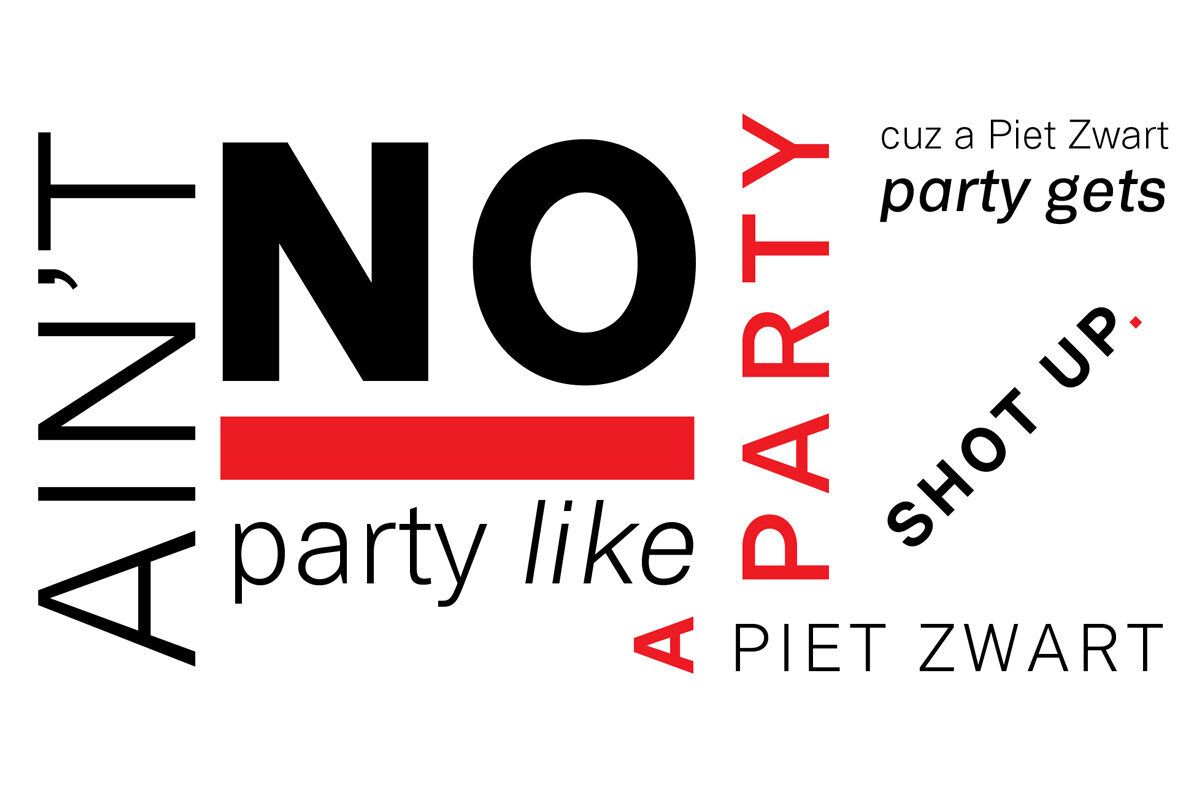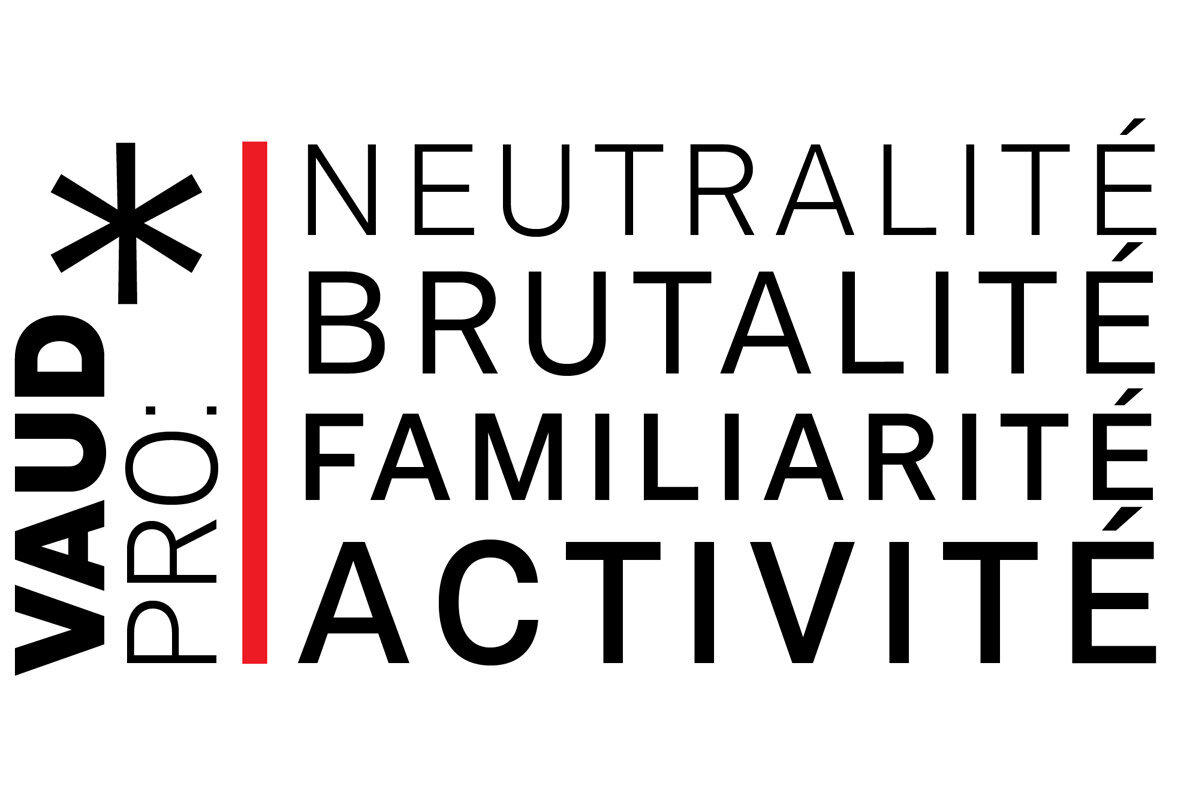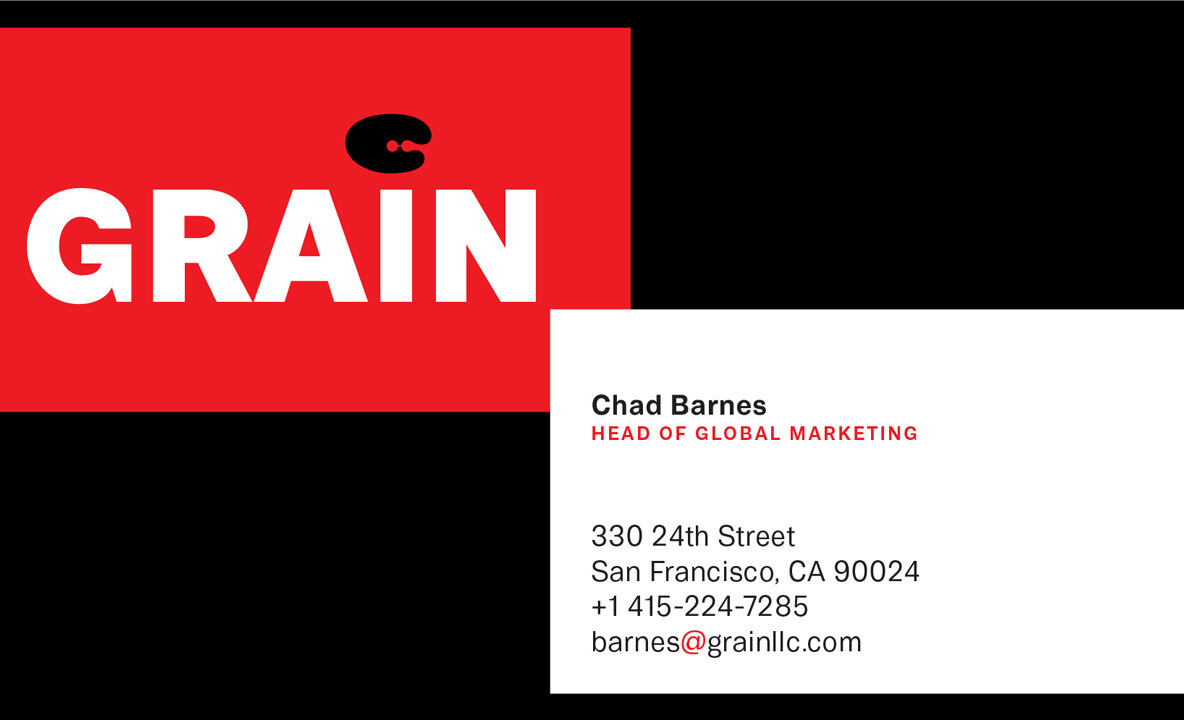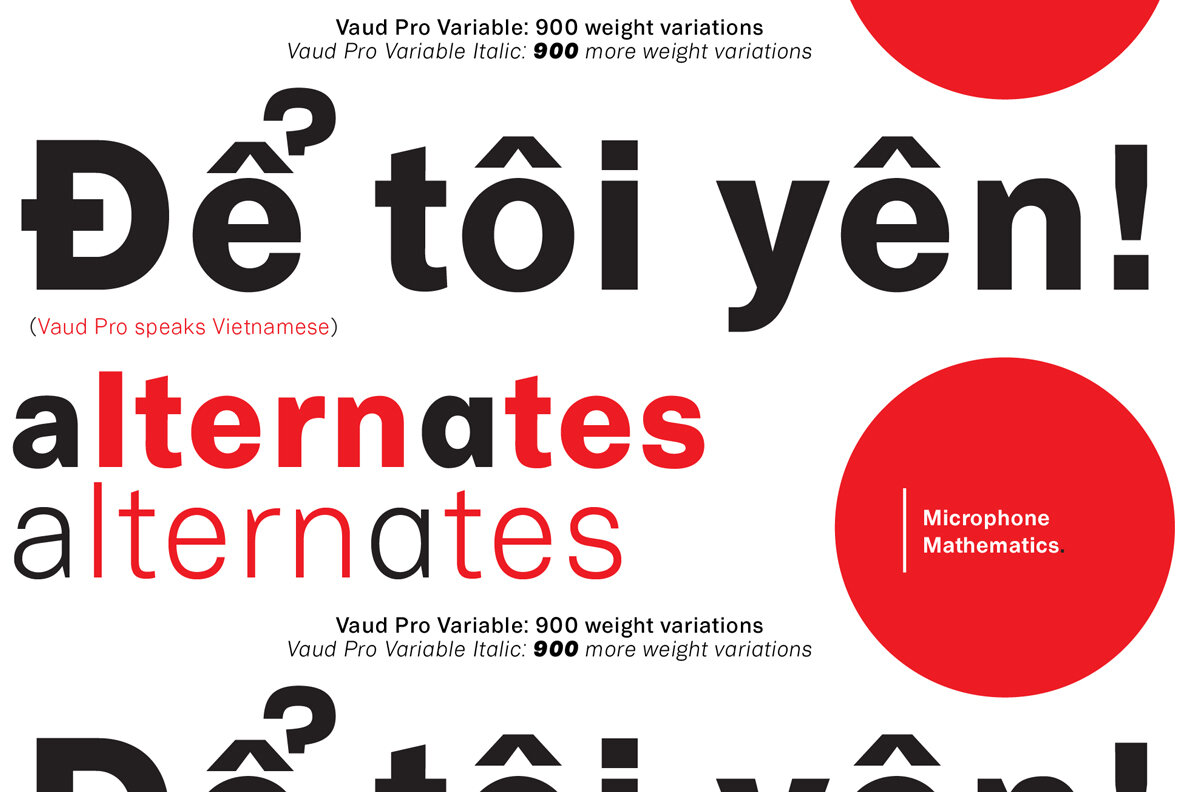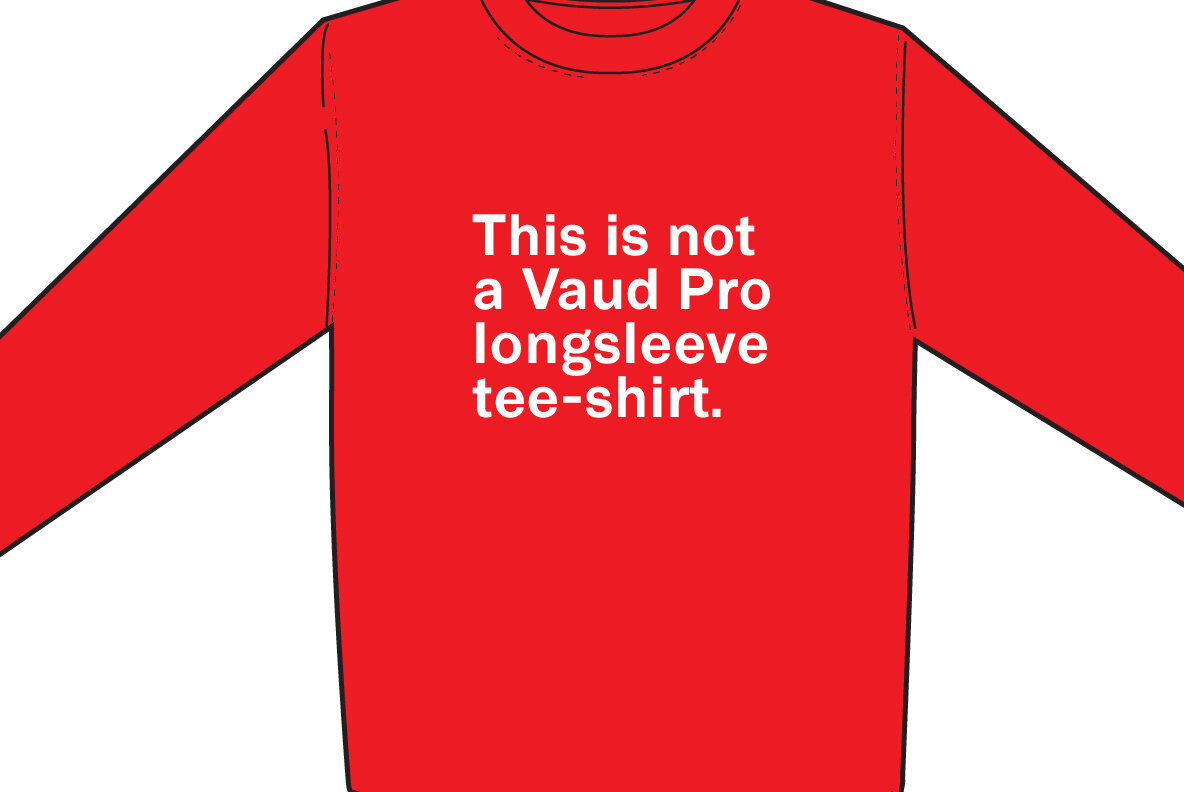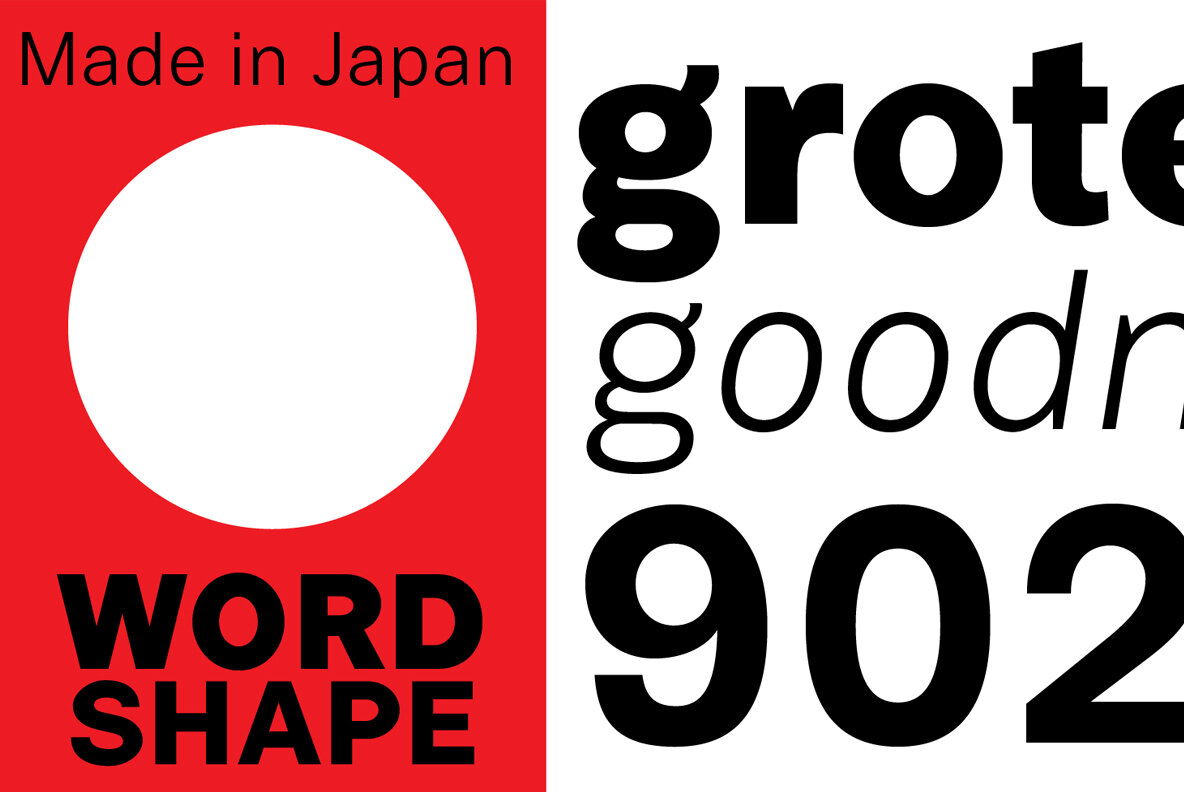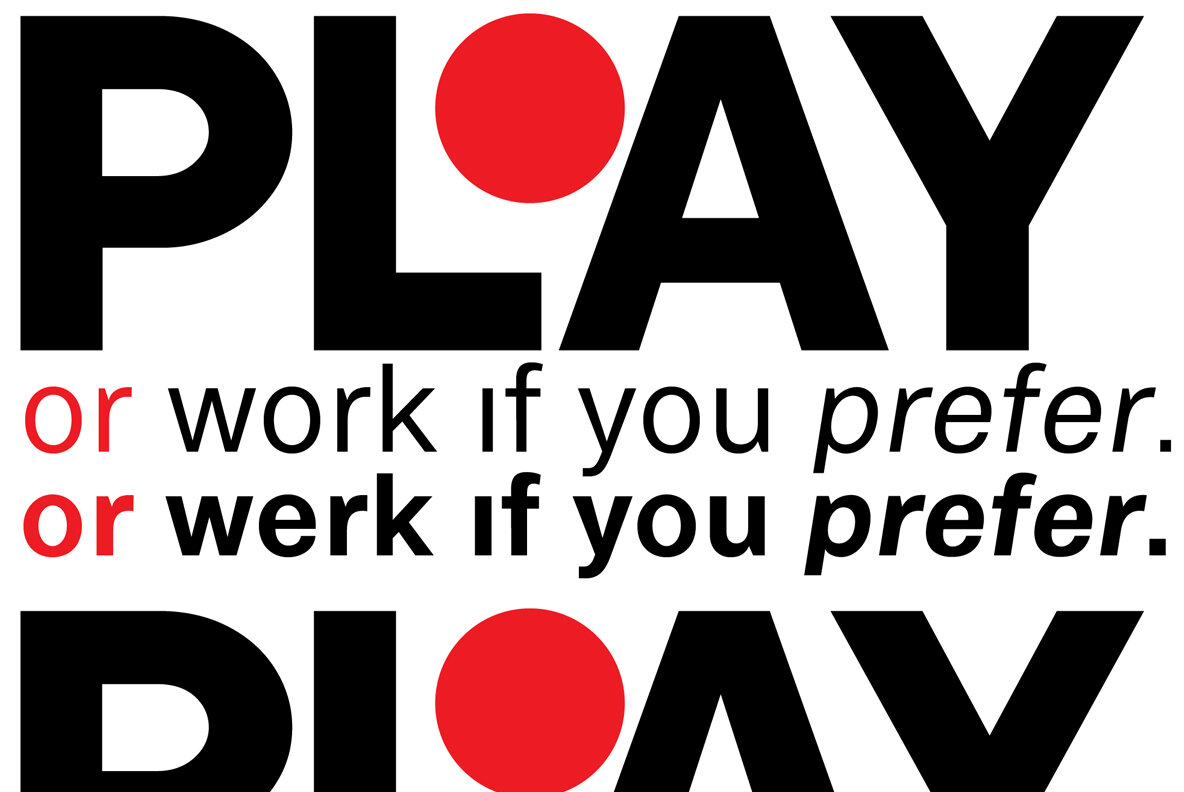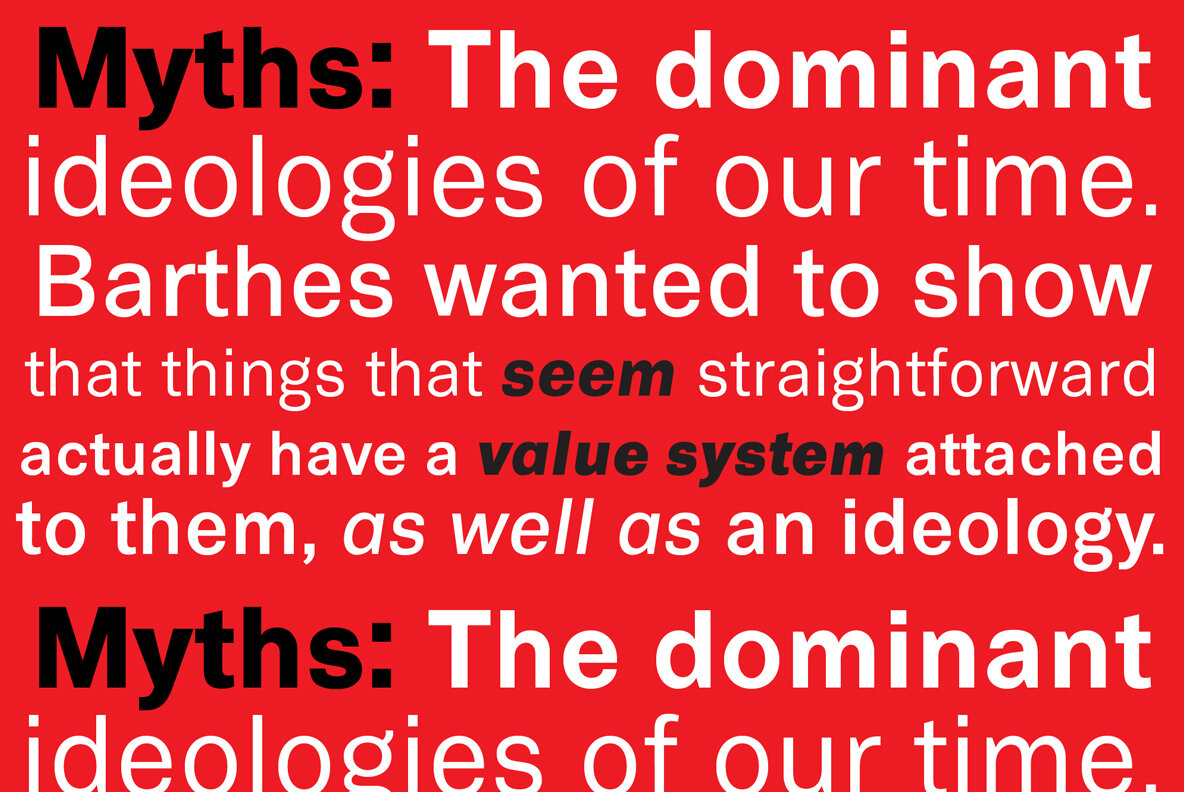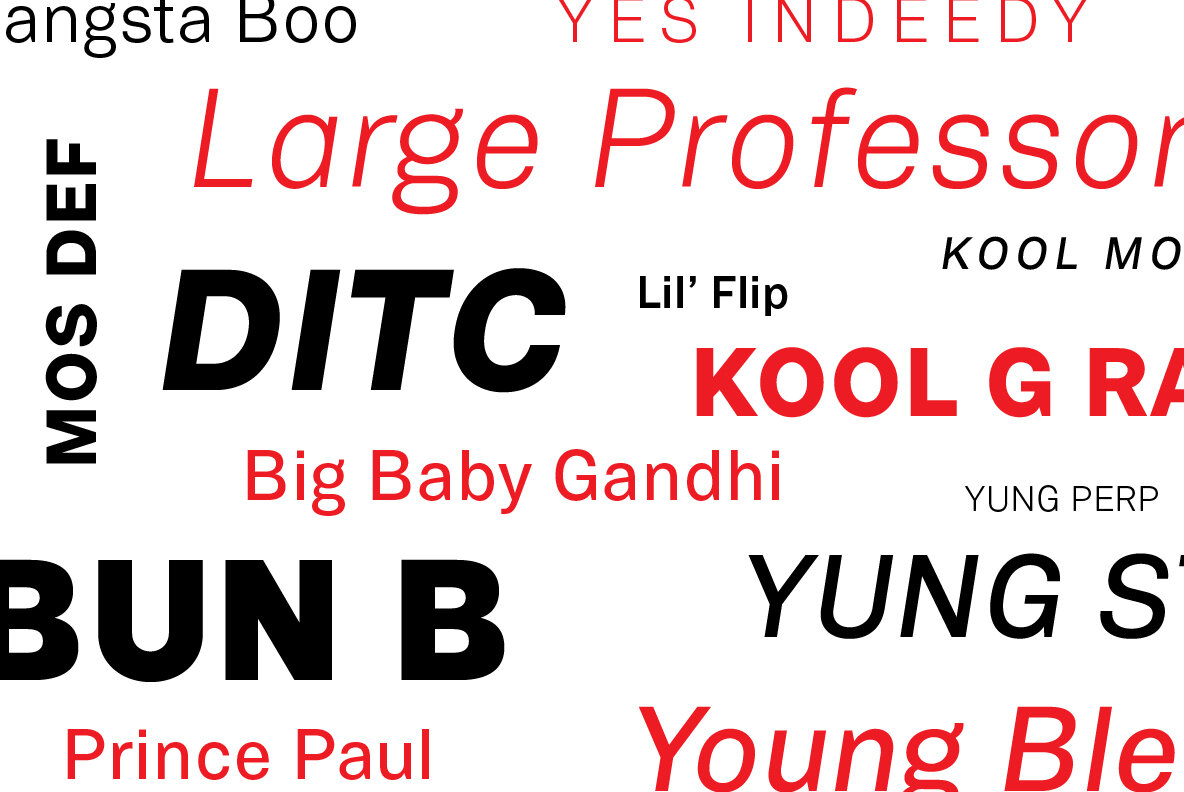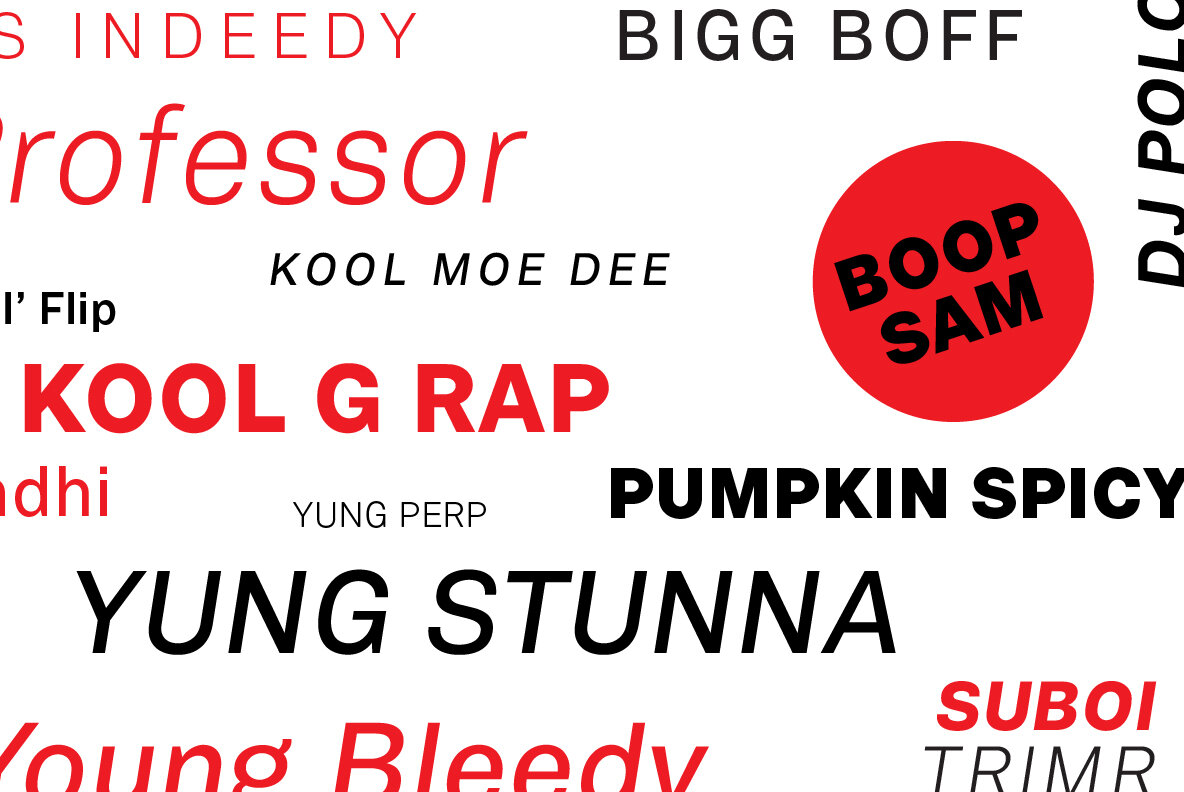
Vaud Pro Font
The new Vaud Pro typeface, meticulously reimagined from the ground up, marks the 10th anniversary of the legendary but discontinued Vaud type family. Brought to life by the gifted team at Wordshape, Vaud Pro goes beyond the boundaries of the ordinary sans serif font family. Its expansive variant, with 10 unique weights available in both Roman and Italic, makes it a compelling addition to any designer's toolkit, specially those seeking to create captivating visuals in the realms of graphic design and marketing.Introducing the Majestic Vaud Pro: The Ultimate Typeface for Graphic Designers and Marketing Firms